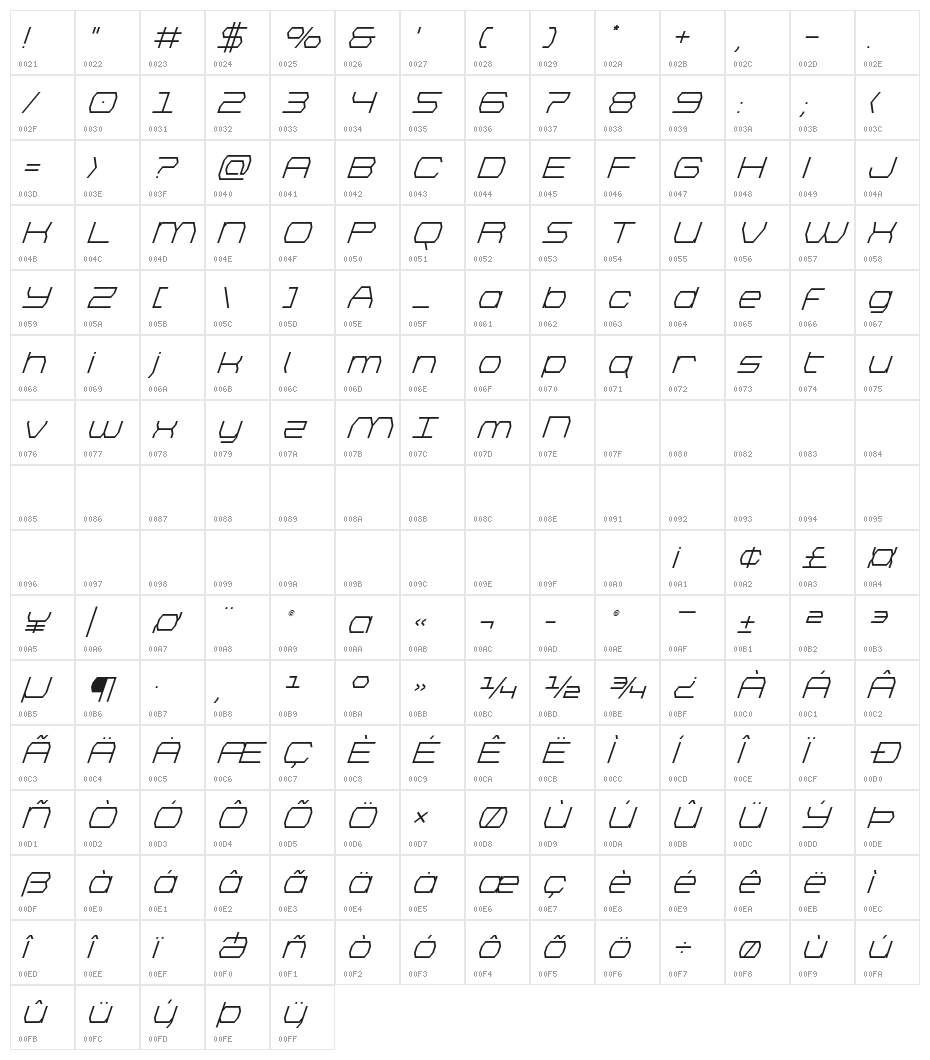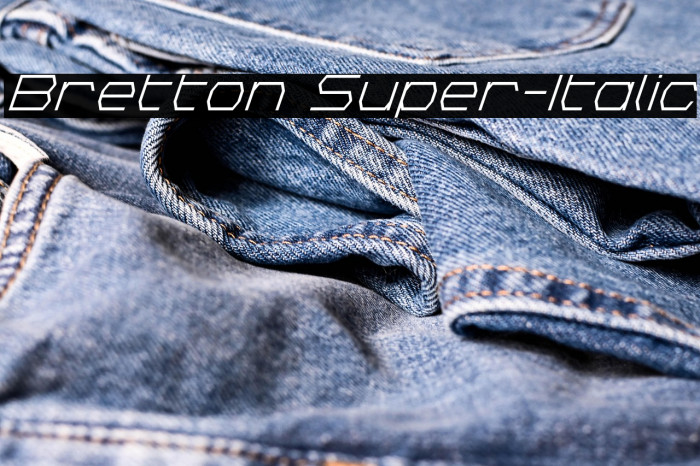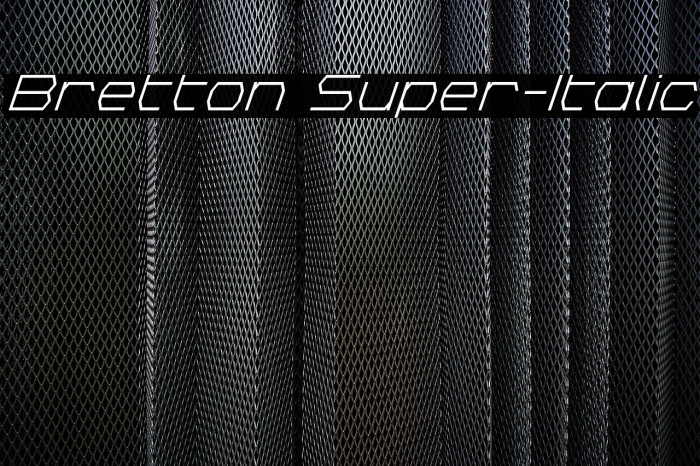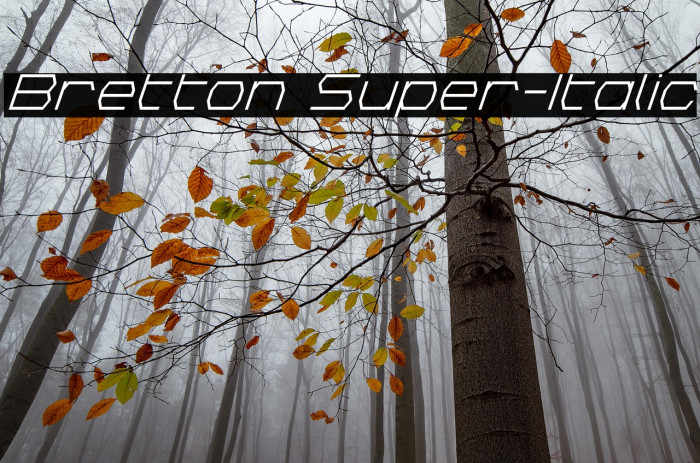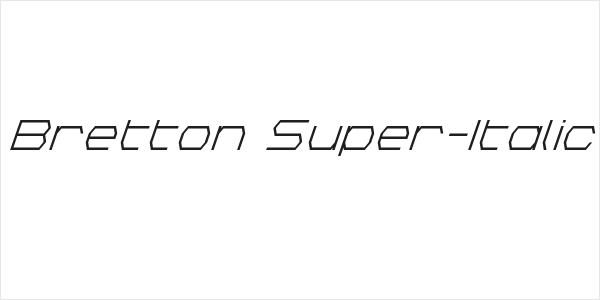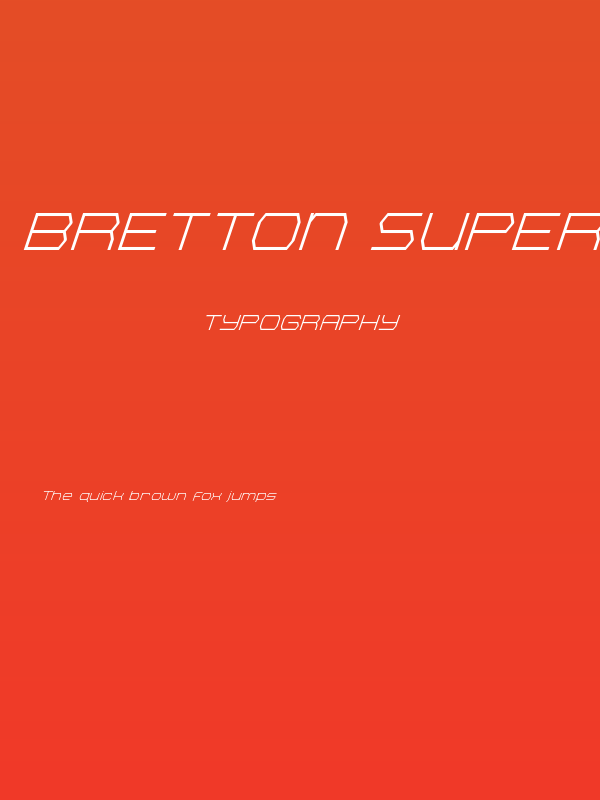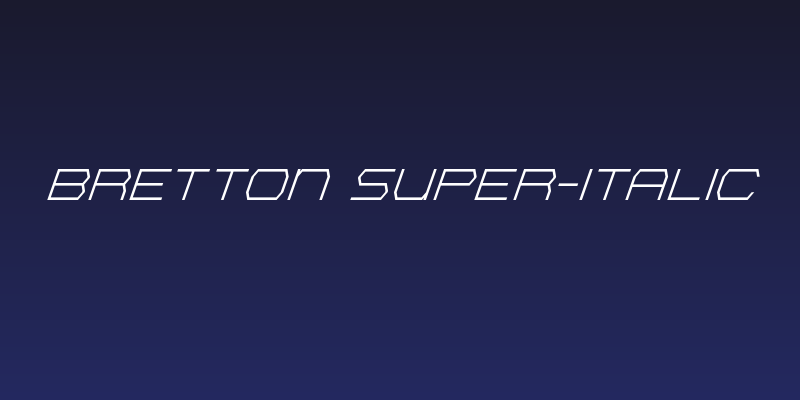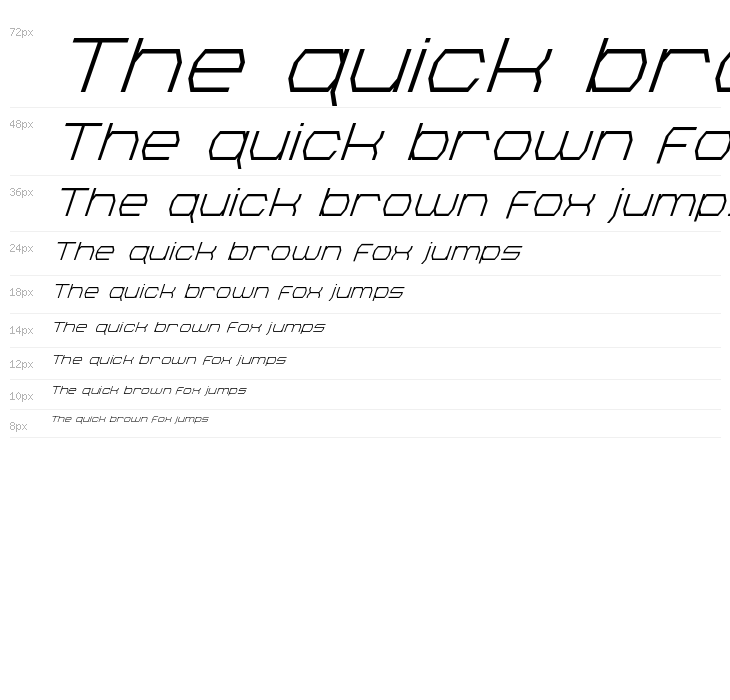
Bretton Super-Italic Font
Bretton Super-Italic Description
This font features a sleek, geometric design with a modern, italicized slant. The characters are constructed with clean, angular lines, giving it a futuristic and technical appearance. The uppercase and lowercase letters maintain a consistent style, with sharp edges and a uniform stroke width. The numerals and special characters are designed to match the overall aesthetic, ensuring a cohesive look across all text. The font's unique style makes it stand out, while its readability is maintained through its clear and precise form.
| Use Case | Headlines, Logos, Digital interfaces |
| Proposed Projects | Ideal for technology branding, futuristic designs, digital interfaces, and modern advertising. |